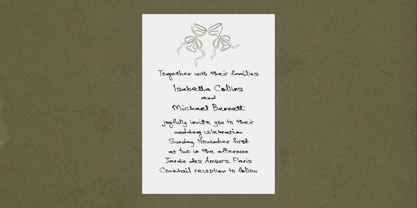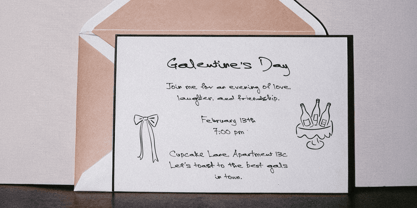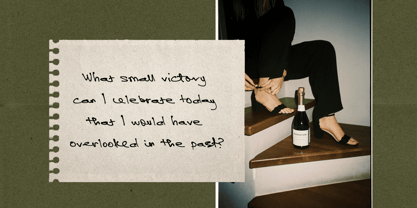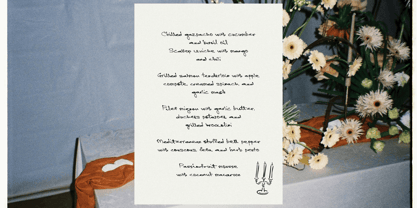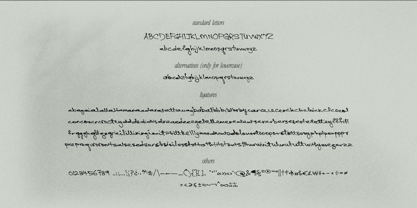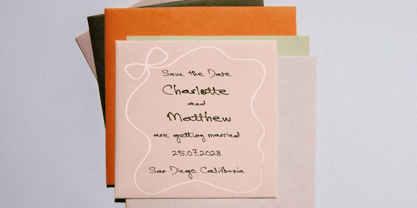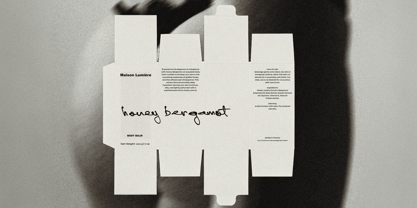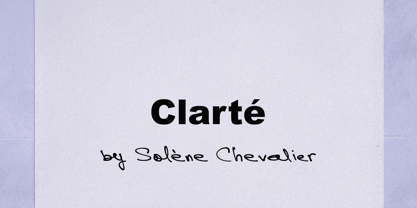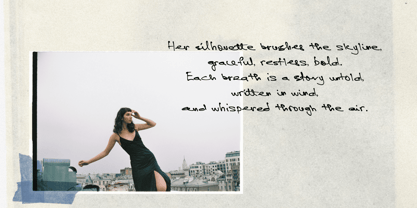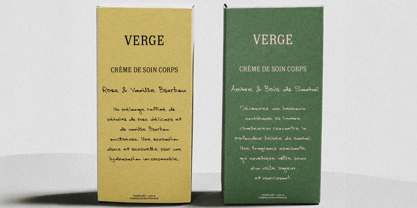
Casually Handwritten
by PeachCreme
The Casually Handwritten Font Family was designed by Gulya Yeap and published by PeachCreme. Casually Handwritten contains 1 styles. More about this family
"Casually Handwritten" is a font born from real, natural handwriting, celebrating the charm of imperfection. It includes 135 ligatures and alternates exclusively for lowercase letters, offering a seamless handwritten look without feeling overly polished. This font is not for those chasing perfect, uniform shapes—it’s for creators who value the raw, authentic feel of handwriting. Whether used in packaging, wedding stationery, or journaling, it adds a personal, unfiltered touch to any project. "Casually Handwritten" is about embracing the quirks that make handwriting so human.
Designers: Gulya Yeap
Foundry: PeachCreme